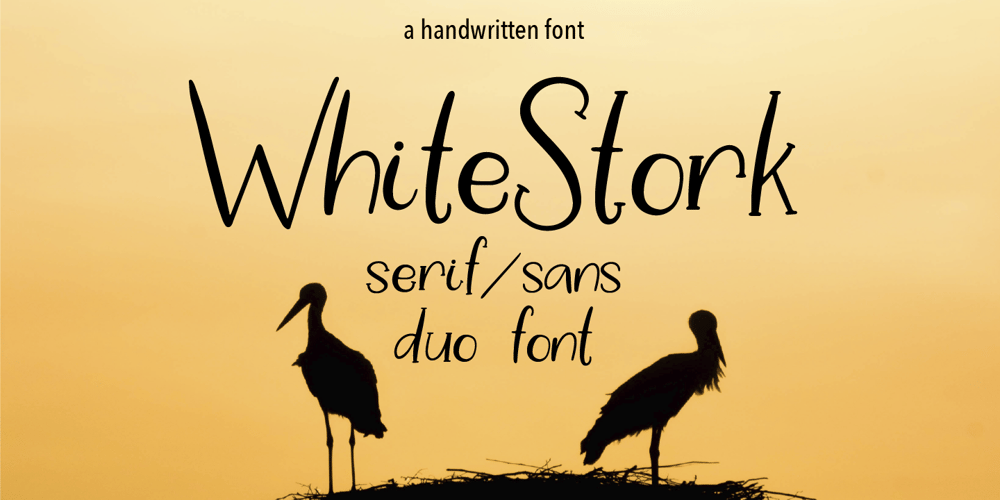
White Stork
White Stork font
White Stork Font Family was designed by Elena Almazova-Dolzhenko and published by Almazova Dolzhenko. White Stork contains 1 styles and family package options. White Stork is a handwritten font family which contains two versions Serif and Sans. So you can combine them to get a more interesting design. The font has simple shapes so it will be versatile to use. It will look great for logotypes, quotes, greeting cards, prints, branding design and much more.Hand-drawn font White Stork contains 2 sets of uppercase (serif and sans), 2 sets of lowercase (serif and sans), alternate set of lowercase letters for serif font, ligatures for double f and t letters. Multilingual support is included.Features: Uppercase & Lowercase Serif Uppercase & Lowercase Sans Alternate set of Lowercase Serif Numerals & Punctuation Ligatures (watch preview) Multilingual support Serif and Sans I hope this font will help you to create you unique design. If you have any question, feel free to contact me!Thanks!Lena (instagram @almaz_dolzhe)